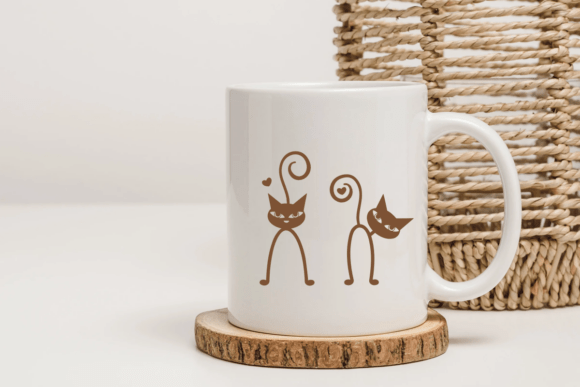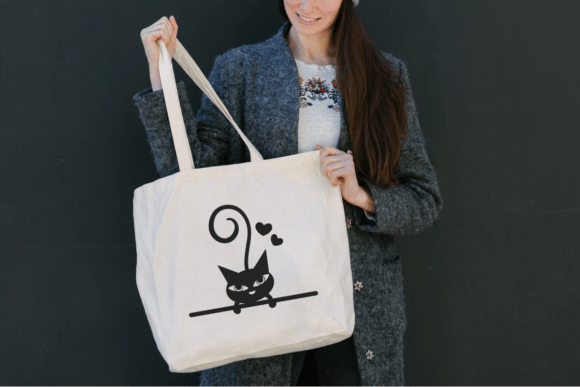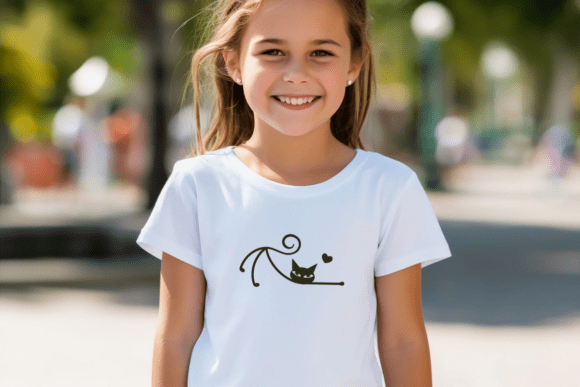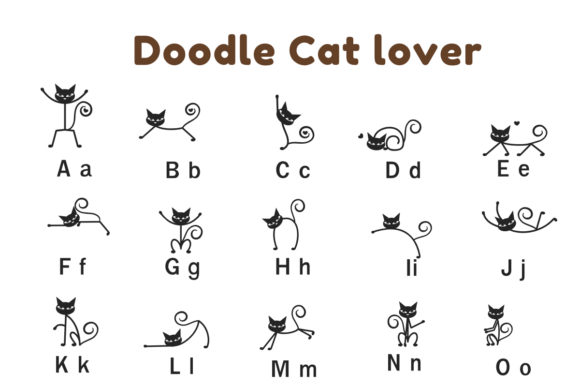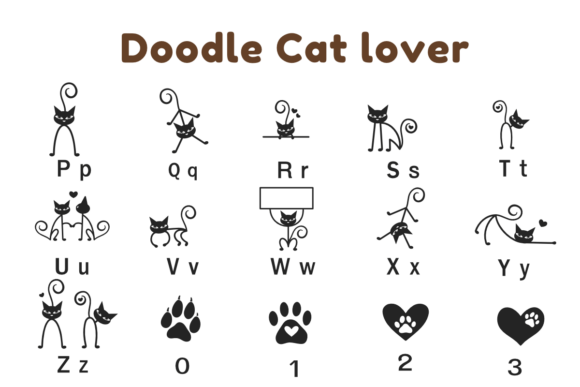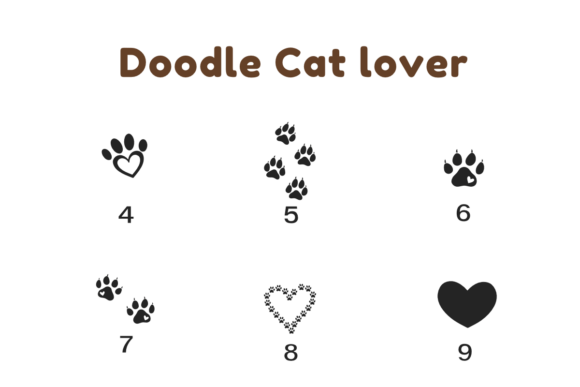
Meet the Purrfect Font: Cat Lover Font
Are you a feline fanatic looking for a font that captures the whimsy and charm of cats? Look no further than the Cat Lover Font, a delightful dingbats font that’s purr-fect for creative projects. This adorable font is designed to add a touch of feline fun to your designs, making it ideal for crafty enthusiasts, designers, and cat lovers alike.
What is Cat Lover Font?
Cat Lover Font is a unique dingbats font that features an array of cute and quirky cat-themed characters. From adorable cat faces to playful paws and whimsical cat silhouettes, this font is packed with feline-inspired glyphs that will make your designs stand out. Whether you’re creating wedding invitations, DIY crafts, decorations, logos, or any other creative project, Cat Lover Font is sure to add a dash of personality and charm.
Uses for Cat Lover Font
The versatility of Cat Lover Font makes it perfect for a wide range of creative projects. Here are some ideas to get you started:
- Wedding Invitations: Add a touch of whimsy to your wedding stationery with Cat Lover Font. Use it to create custom save-the-date cards, wedding invitations, or thank-you notes.
- DIY Crafts: Use Cat Lover Font to create personalized gifts, such as customized mugs, tote bags, or journals.
- Decorations: Add a feline touch to your home decor with Cat Lover Font. Use it to create custom wall art, garlands, or gift tags.
- Logos: Create a memorable brand identity with Cat Lover Font. Use it to design a logo for your cat-themed business or product.
- Social Media Graphics: Use Cat Lover Font to create engaging social media graphics, such as cat-themed memes, quotes, or fun facts.
Why Choose Cat Lover Font?
So, why choose Cat Lover Font over other fonts? Here are just a few reasons why this font stands out:
- Unique and Quirky: Cat Lover Font is a one-of-a-kind font that’s sure to add a touch of personality to your designs.
- High-Quality: Cat Lover Font is a high-quality font that’s designed to look great in any design.
- Feline Fun: Let’s face it – cats are fun! Cat Lover Font captures the playful and whimsical nature of felines, making it perfect for cat lovers.
Tips for Using Cat Lover Font
Here are some tips for getting the most out of Cat Lover Font:
- Experiment with Sizes: Try using Cat Lover Font in different sizes to create visual interest and hierarchy in your designs.
- Mix and Match: Combine Cat Lover Font with other fonts to create a unique and eye-catching design.
- Use with Images: Pair Cat Lover Font with cat-themed images or illustrations to create a cohesive and adorable design.